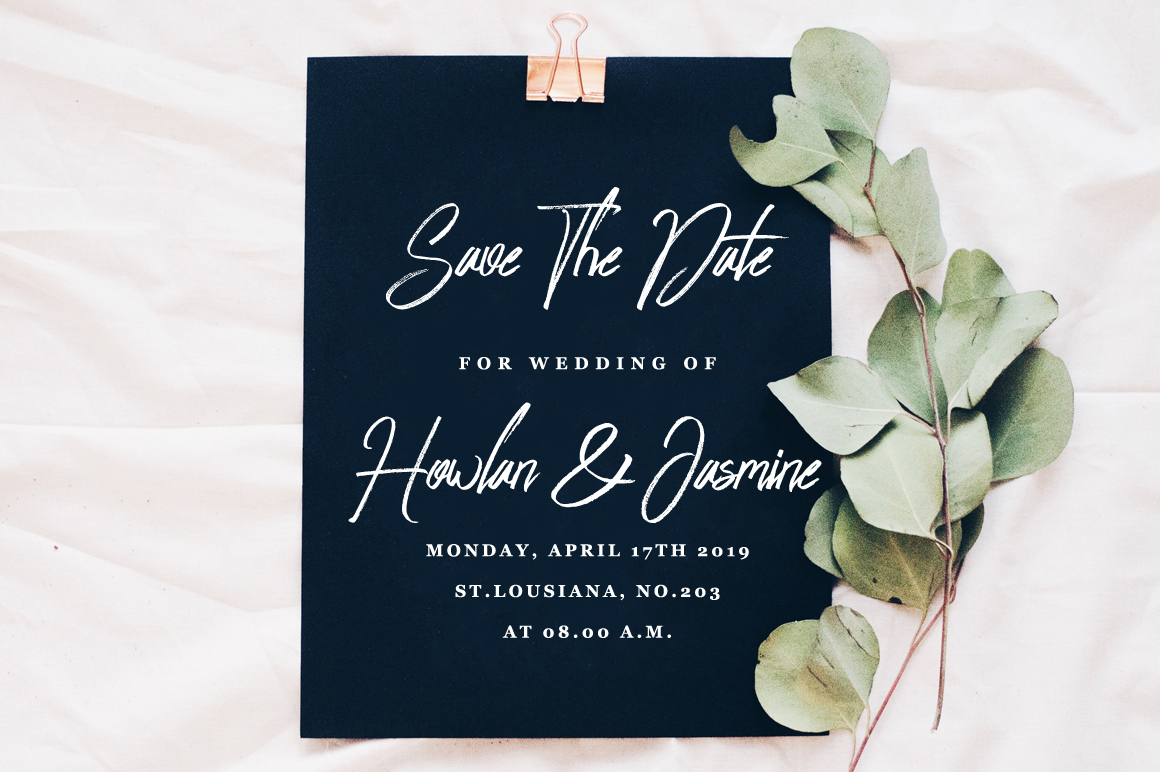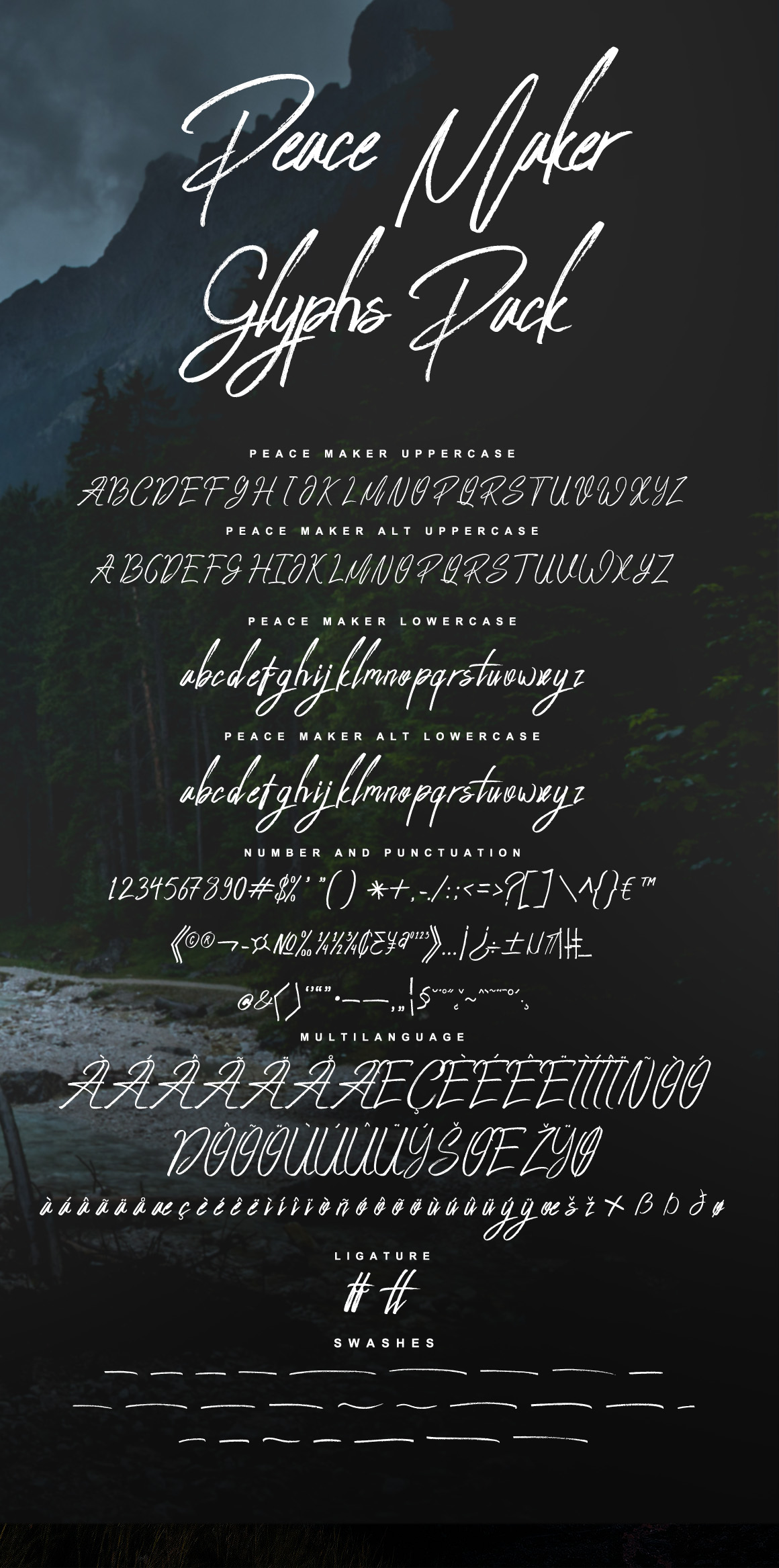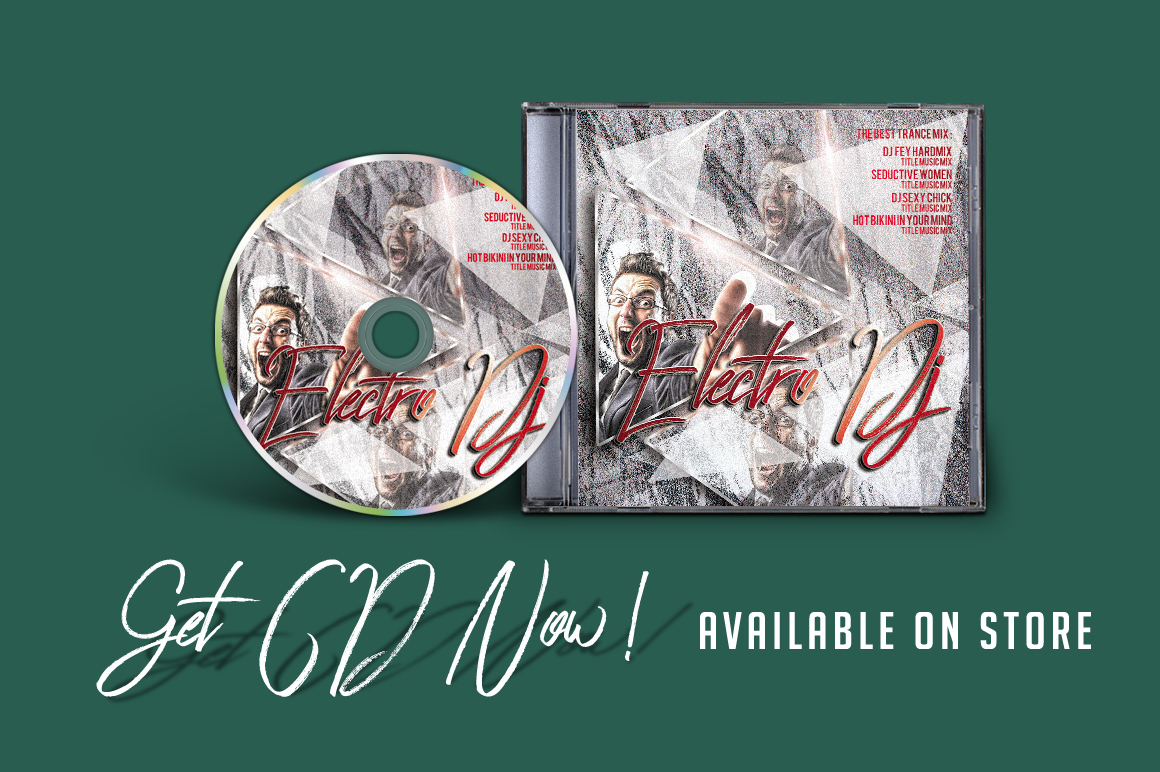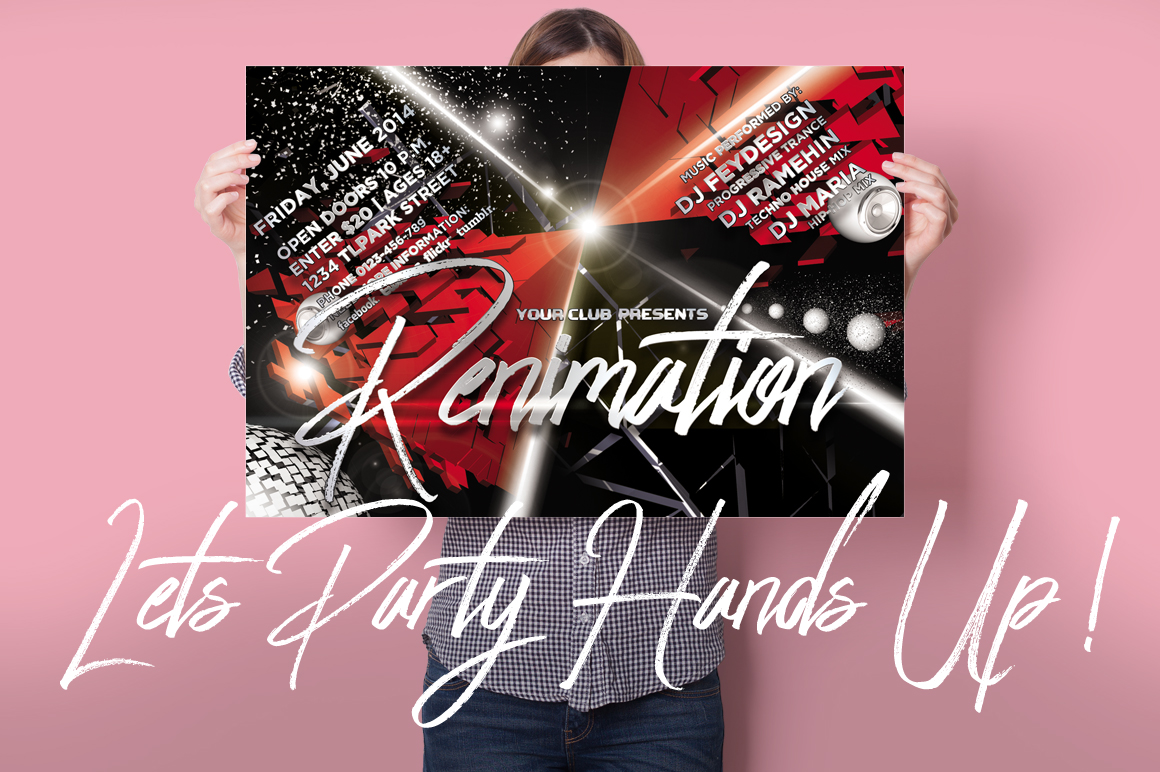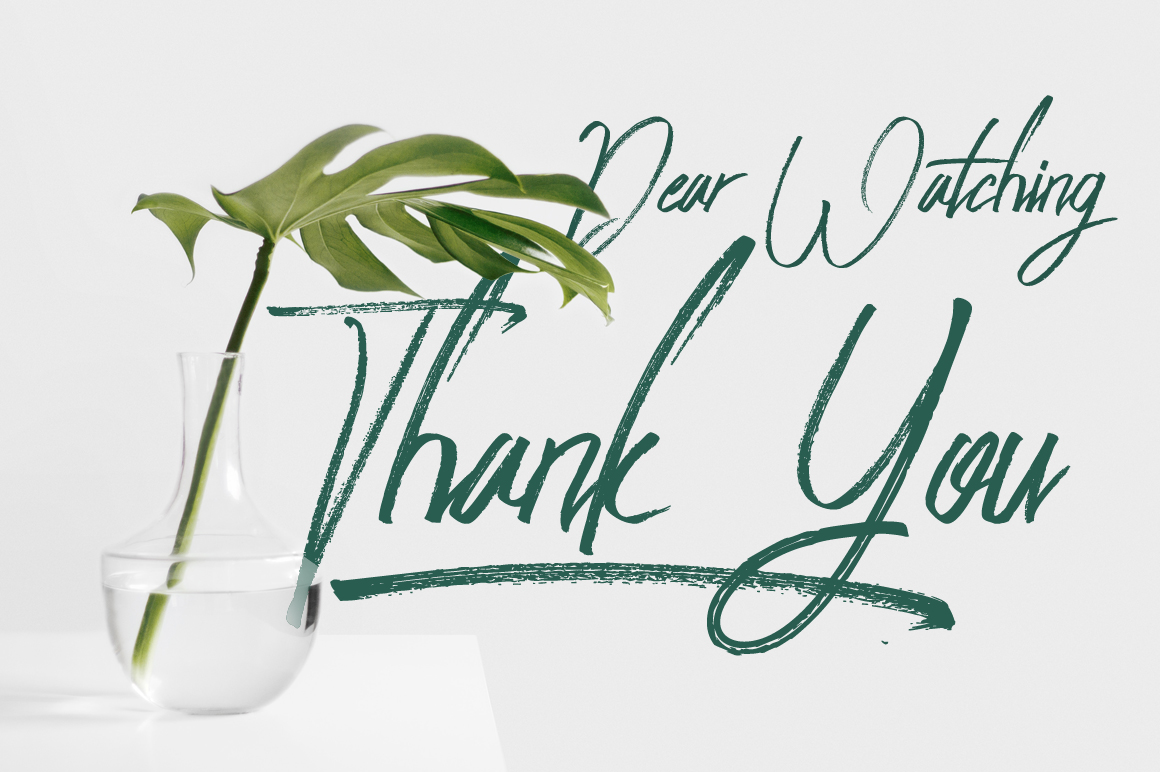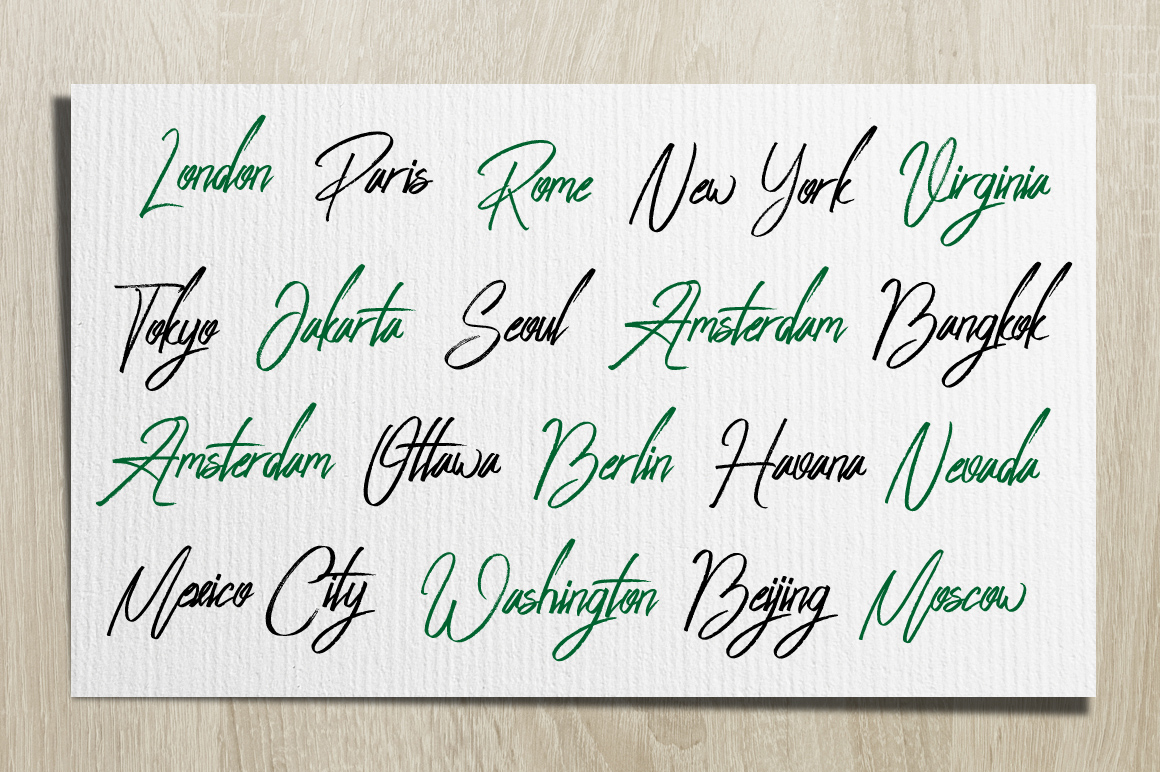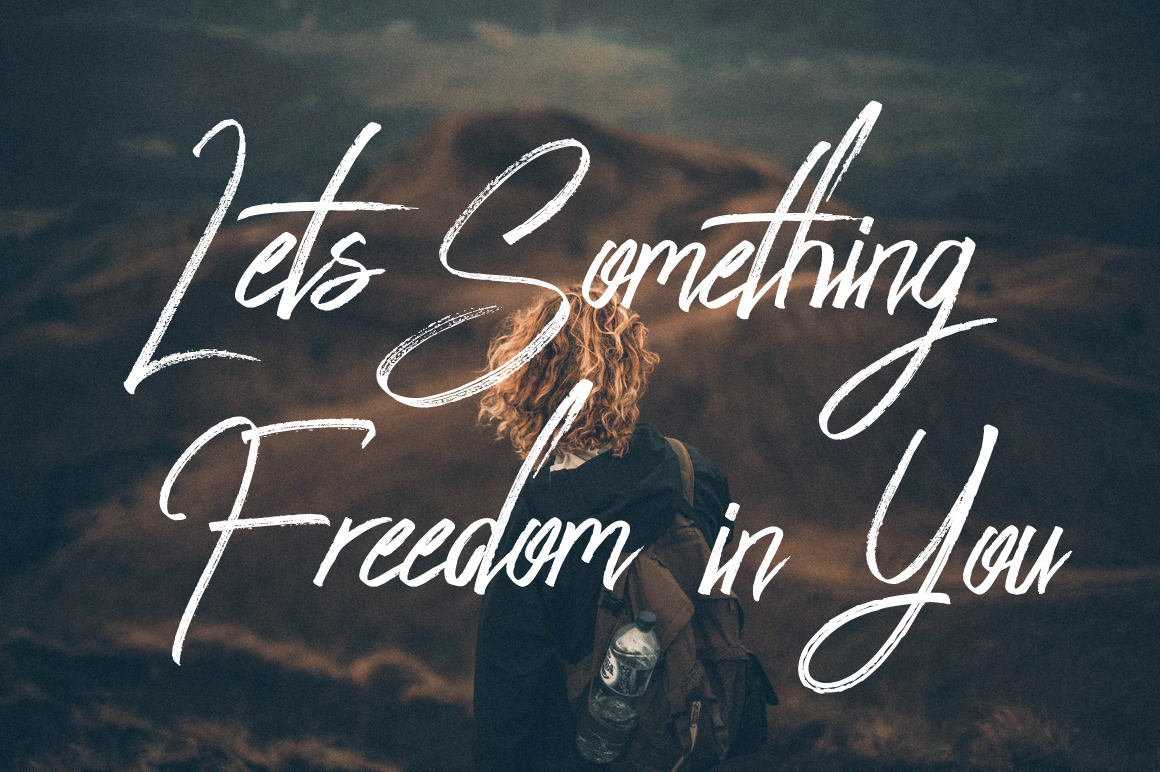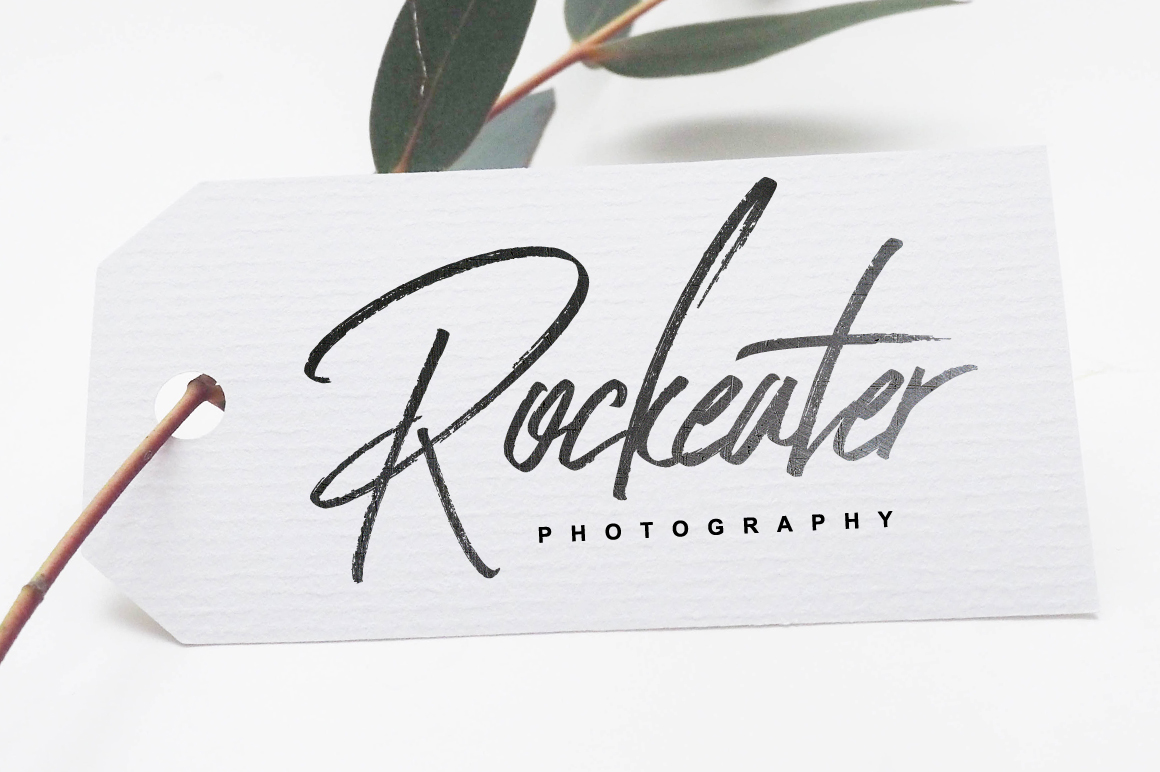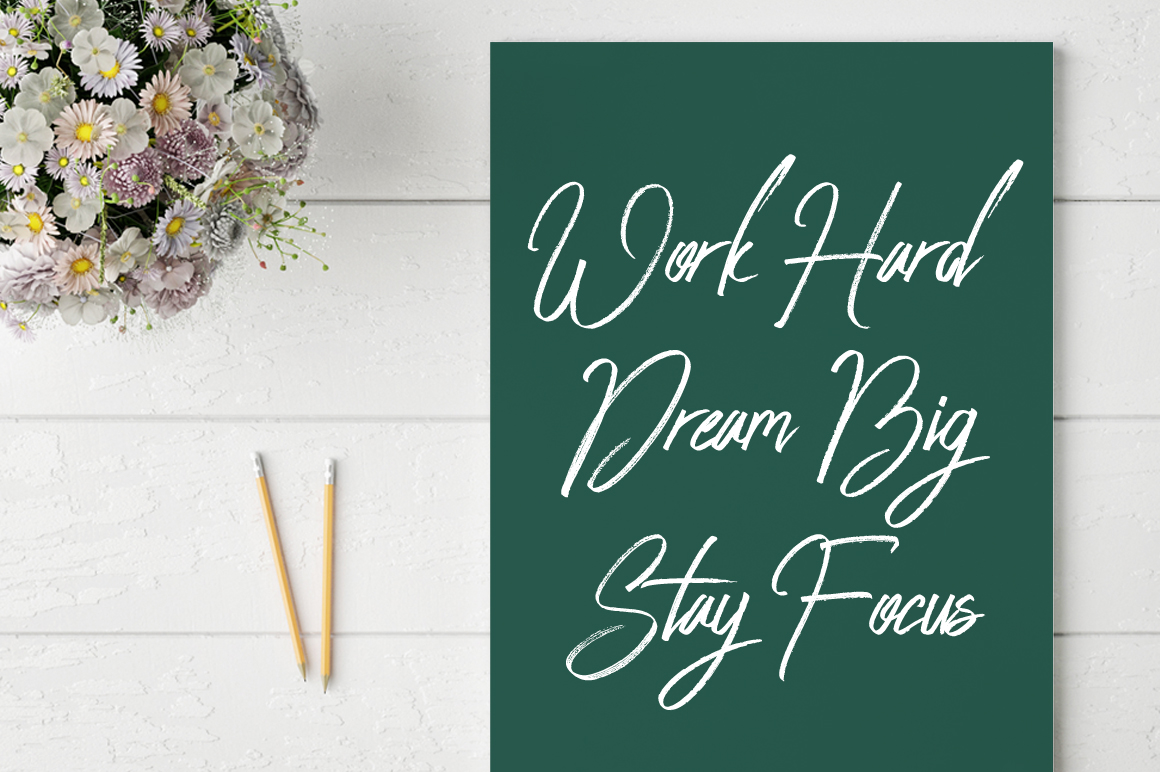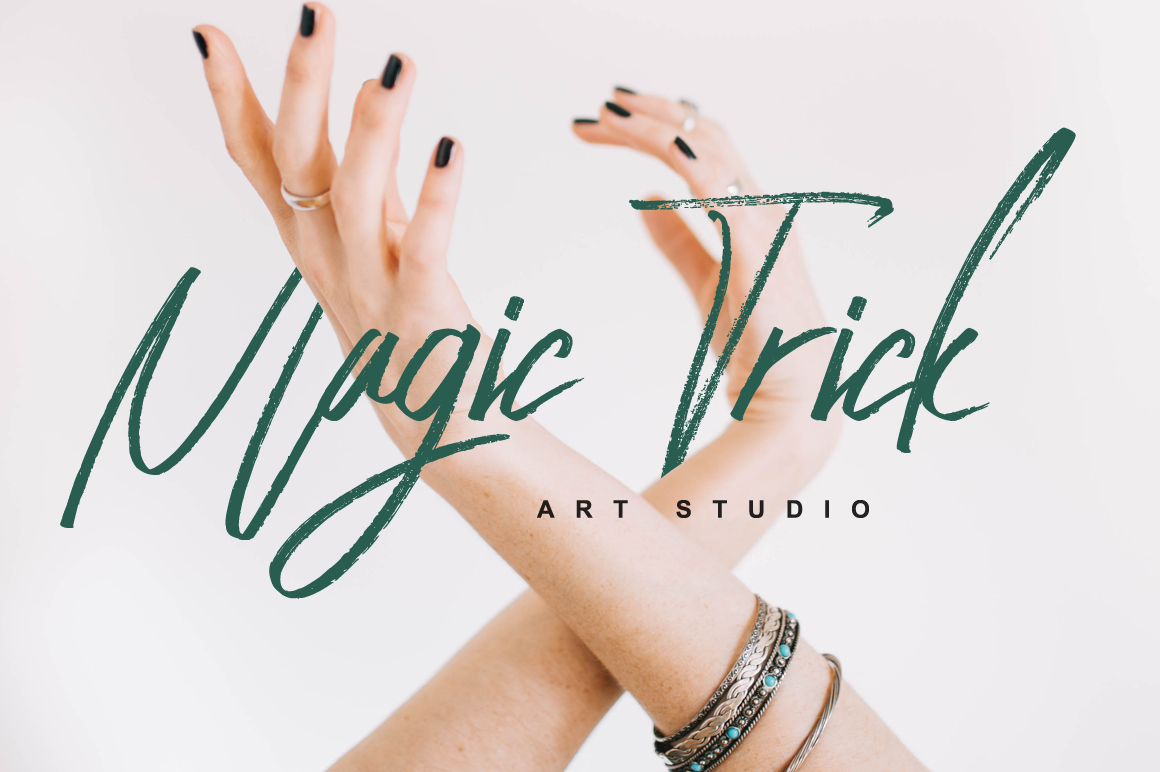
Peace Maker Font
About Peace Maker Font
Peace Maker is a stunning dry brush stroke font, suitable for headlines and signature styled designs. This font is a gorgeous way to give your projects a high impact yet casual appeal.